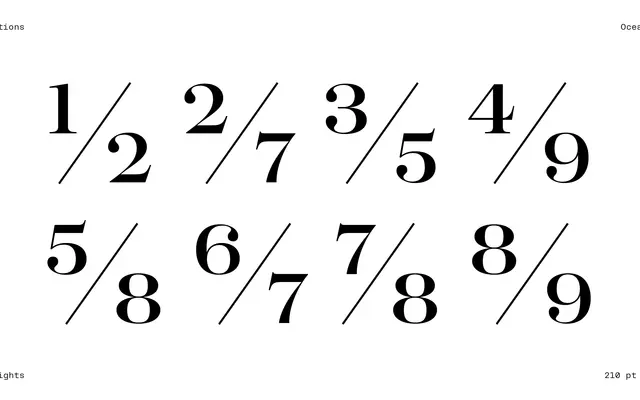
A high-contrast serif spanning text and poster grades, drawing on fat face and Scotch Roman traditions while introducing deliberate quirks in certain letterforms.
Built across six weights with matching italics, Oceanic moves from restrained text sizes to expressive poster grades. The text cuts use reduced contrast and a slightly condensed form for legibility at small sizes, while the Poster weight foregrounds unconventional details such as the biomorphic terminals on the 'c' and 'e' and the intentionally unsettling proportions of 'R' and 'K'. Italic alternates include descender swashes and ascender variants for additional decorative flexibility. Coverage extends to Extended Latin and Cyrillic.
Oceanic draws on 18th and 19th-century fat face and Didone traditions (Bodoni, Scotch Roman), featuring strong upright contrast across text and poster weights. The text cuts reduce contrast for continuous reading, placing the family between display Didone and transitional serif territory.